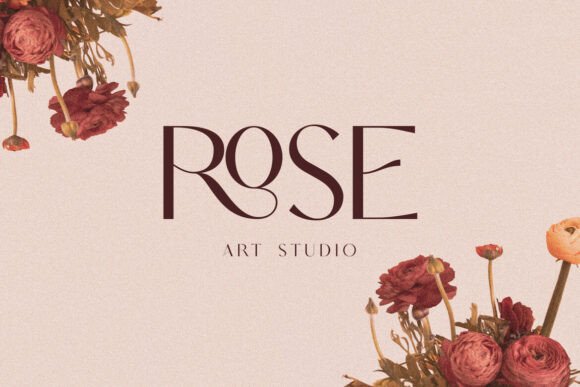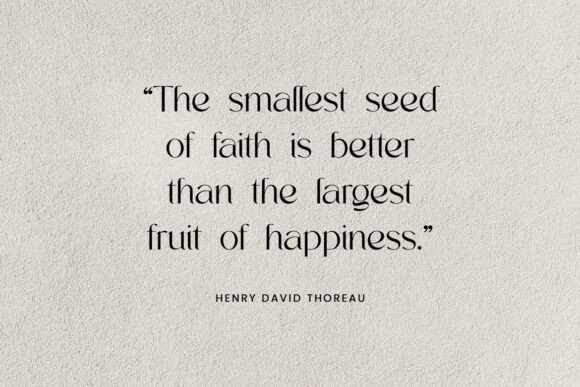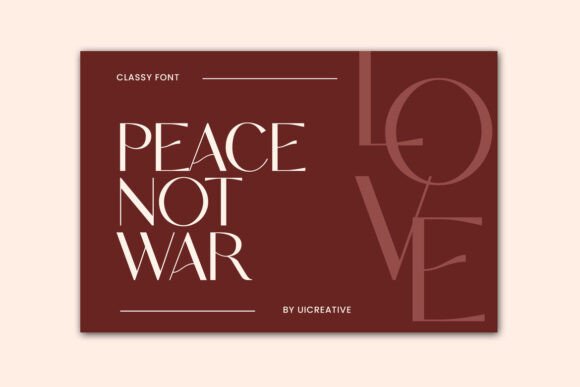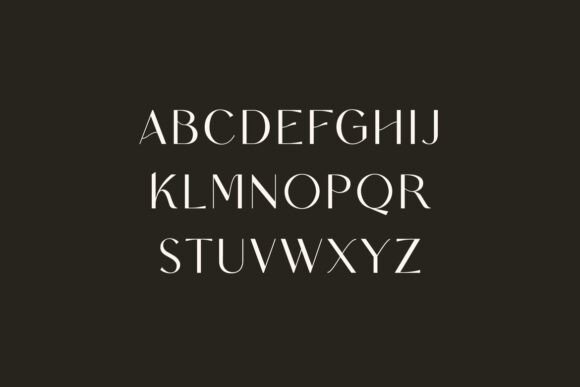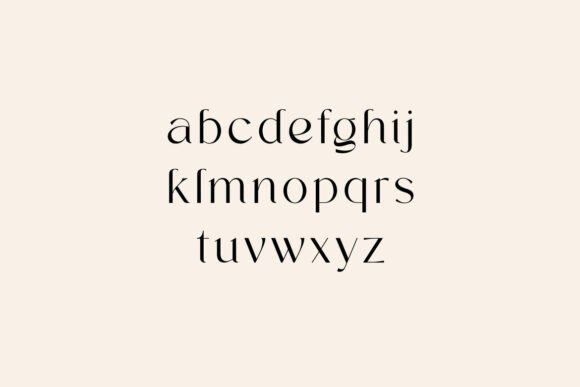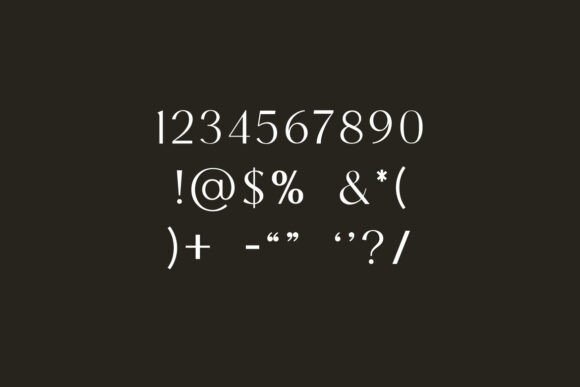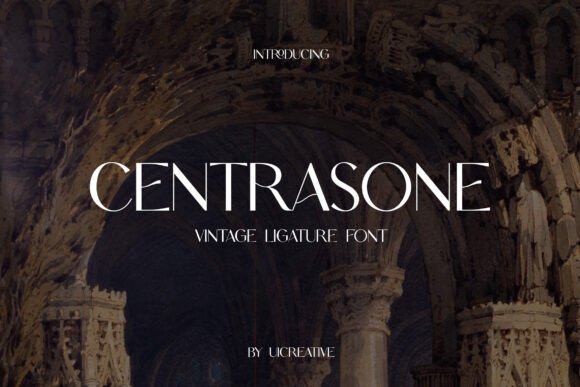
Introducing Centrasone Font: The Epitome of Elegance and Style
In the realm of typography, few fonts manage to convey the perfect blend of elegance, class, and style. Centrasone Signature Serif Font is one such remarkable typeface that has captured the hearts of designers and crafters alike. With its beautiful, classy, and stylish appeal, Centrasone Font is ideally suited for a wide variety of projects that demand a touch of sophistication and refinement.
Characteristics of Centrasone Font
Centrasone Signature Serif Font boasts a unique and captivating design that exudes both masculine and feminine qualities, making it an excellent choice for fashion-related branding or editorial design. The font’s signature serif style adds a touch of luxury and refinement, perfect for creating stunning visual impressions. Whether you’re working on a logo, stationery, or website headers, Centrasone Font is sure to elevate your design to new heights.
One of the standout features of Centrasone Font is its incredible versatility. This font can be used for a wide range of projects, including:
- Signature and stationery design
- Logo creation
- Wedding and event typography
- Magazine or book covers
- Website headers and branding
- Fashion-related branding and editorial design
Whether you’re a designer, craftsperson, or DIY enthusiast, Centrasone Font offers endless possibilities for creative expression.
Why Choose Centrasone Font?
So, what sets Centrasone Font apart from other typefaces? Here are just a few reasons why designers and crafters love working with this font:
- Elegant and stylish: Centrasone Font boasts a sophisticated design that’s perfect for creating luxurious and refined visual impressions.
- Masculine and feminine qualities: This font’s unique blend of masculine and feminine characteristics makes it an excellent choice for fashion-related branding and editorial design.
- Highly versatile: Centrasone Font can be used for a wide range of projects, from signature and stationery design to website headers and branding.
- Easy to read: Despite its elegant and stylish design, Centrasone Font remains highly legible, making it perfect for body text and headings.
Tips for Using Centrasone Font
To get the most out of Centrasone Font, here are a few tips to keep in mind:
- Pair with complementary fonts: Combine Centrasone Font with complementary fonts to create visually appealing typography.
- Experiment with font sizes: Play around with different font sizes to create visual hierarchy and emphasize key elements.
- Use for headlines and titles: Centrasone Font is perfect for headlines and titles, where its elegant and stylish design can shine.
In conclusion, Centrasone Signature Serif Font is a truly exceptional typeface that offers a perfect blend of elegance, class, and style. With its versatile design, masculine and feminine qualities, and high legibility, this font is an excellent choice for designers and crafters working on a wide range of projects. Whether you’re creating a logo, website headers, or fashion-related branding, Centrasone Font is sure to elevate your design to new heights.